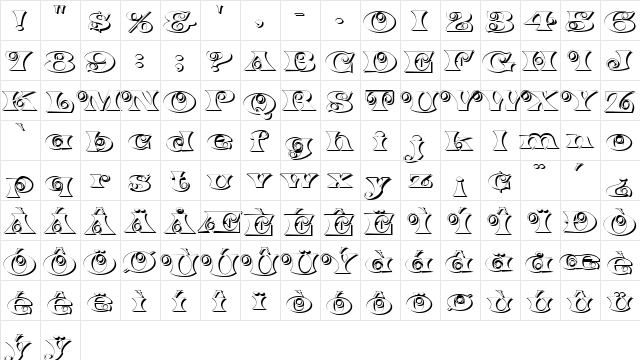
K22 Spiral Swash Shadow Regular
Design Context for K22 Spiral Swash Shadow Typeface
K22 Spiral Swash Shadow brings a calligraphic fluidity to the page — its connecting strokes and expressive curves give it an unmistakably human quality.
Font Pairing: Combine K22 Spiral Swash Shadow with a simple geometric sans for maximum contrast — the tension between flowing curves and clean structure is a classic typographic pairing.
Pro Tip: Pair K22 Spiral Swash Shadow with a clean sans-serif for supporting text. The contrast between fluid script and geometric structure creates an elegant typographic hierarchy.